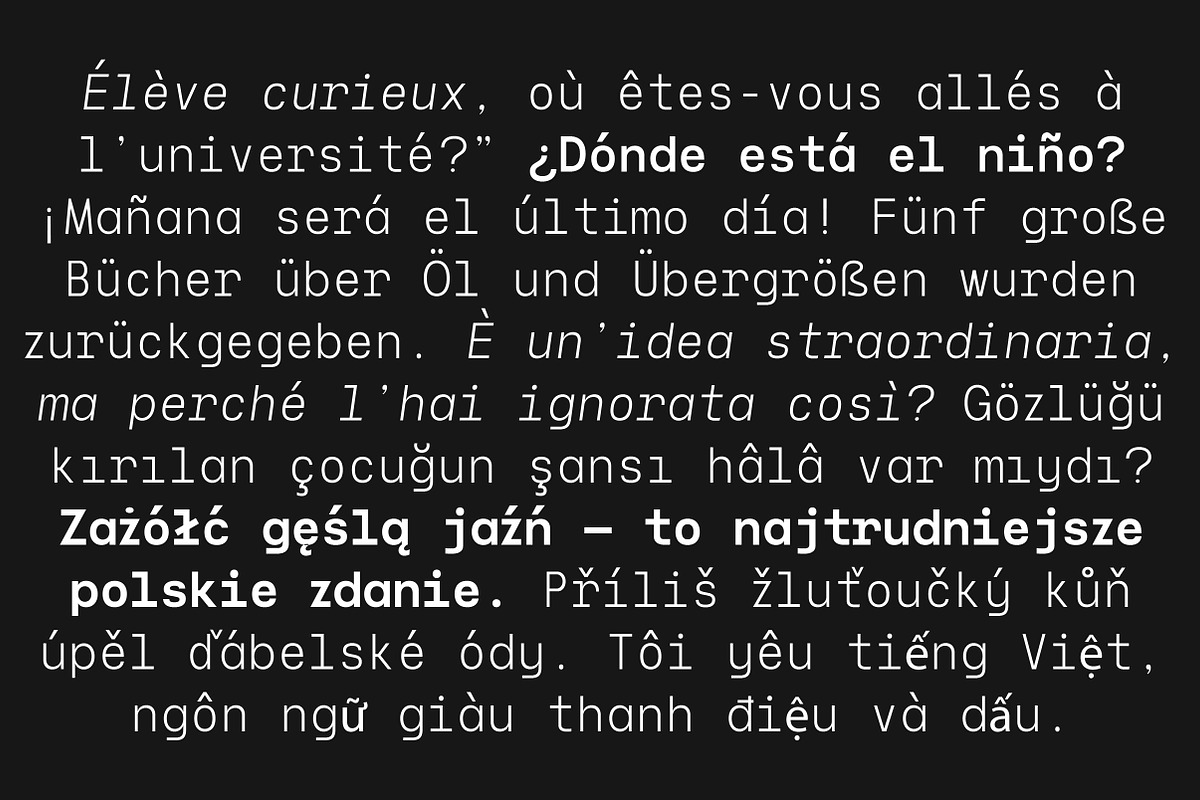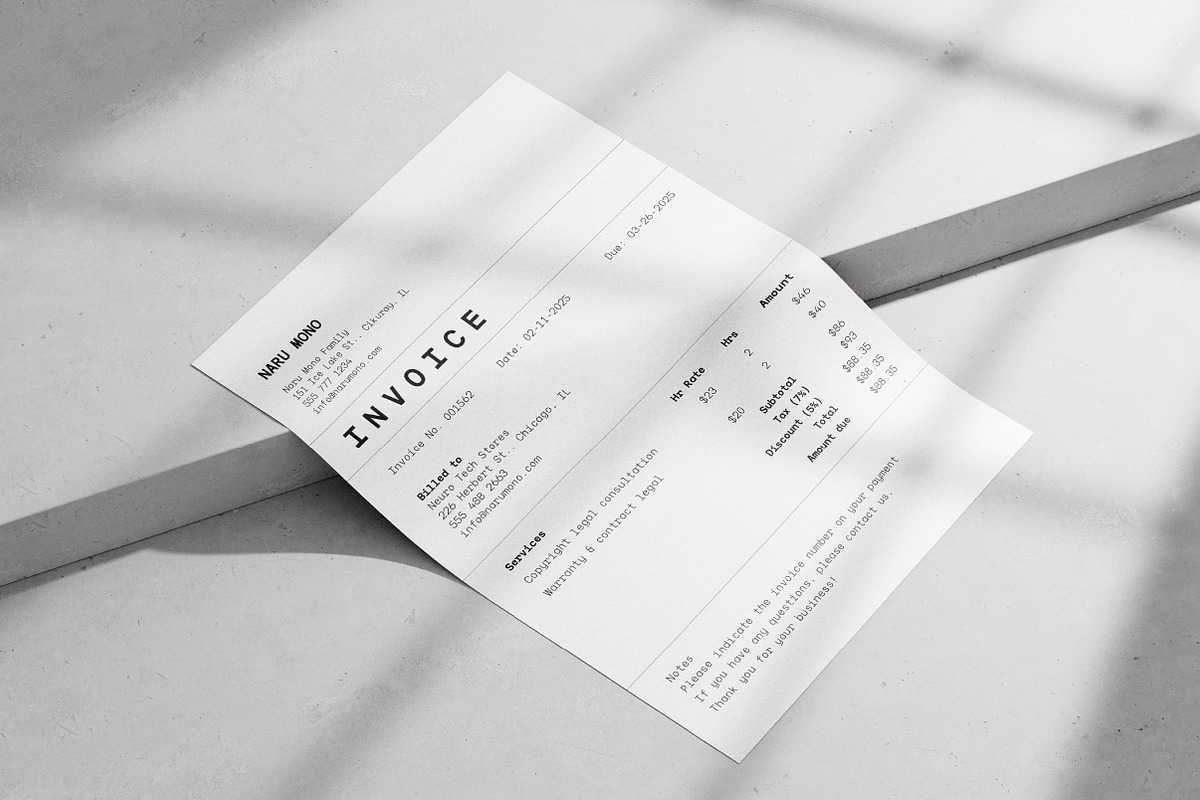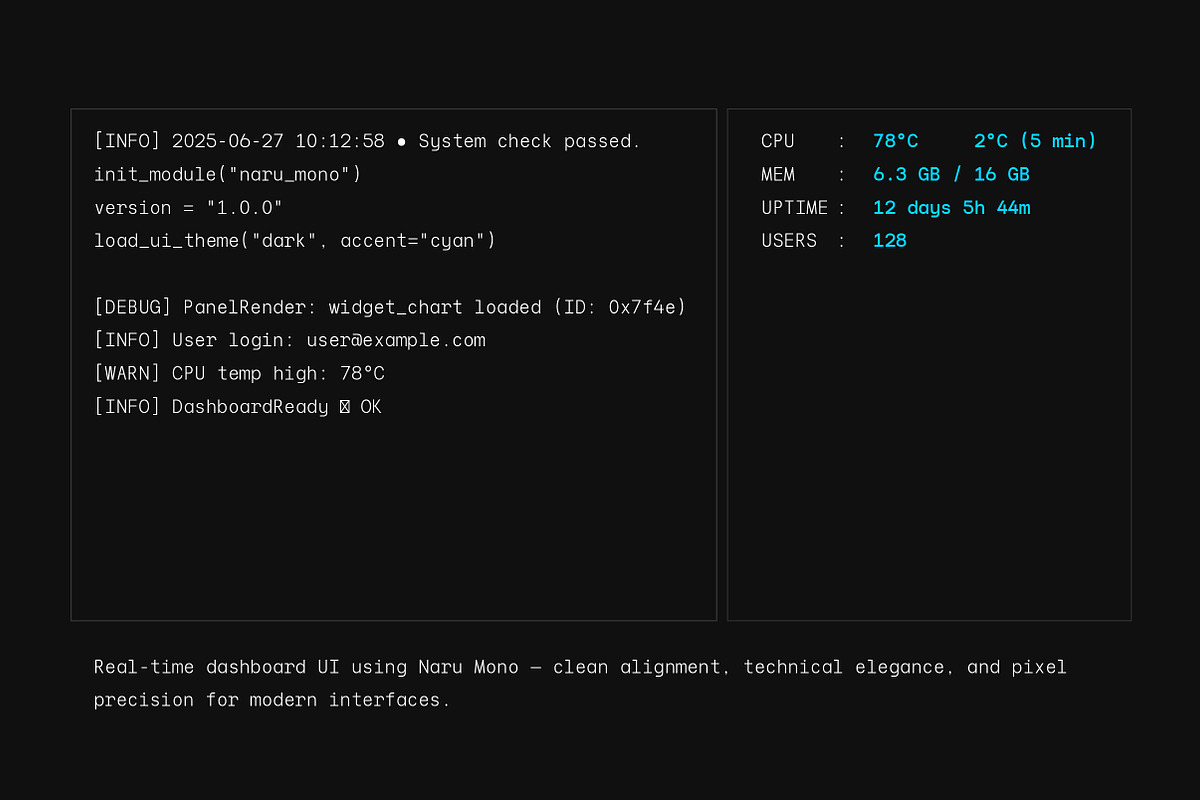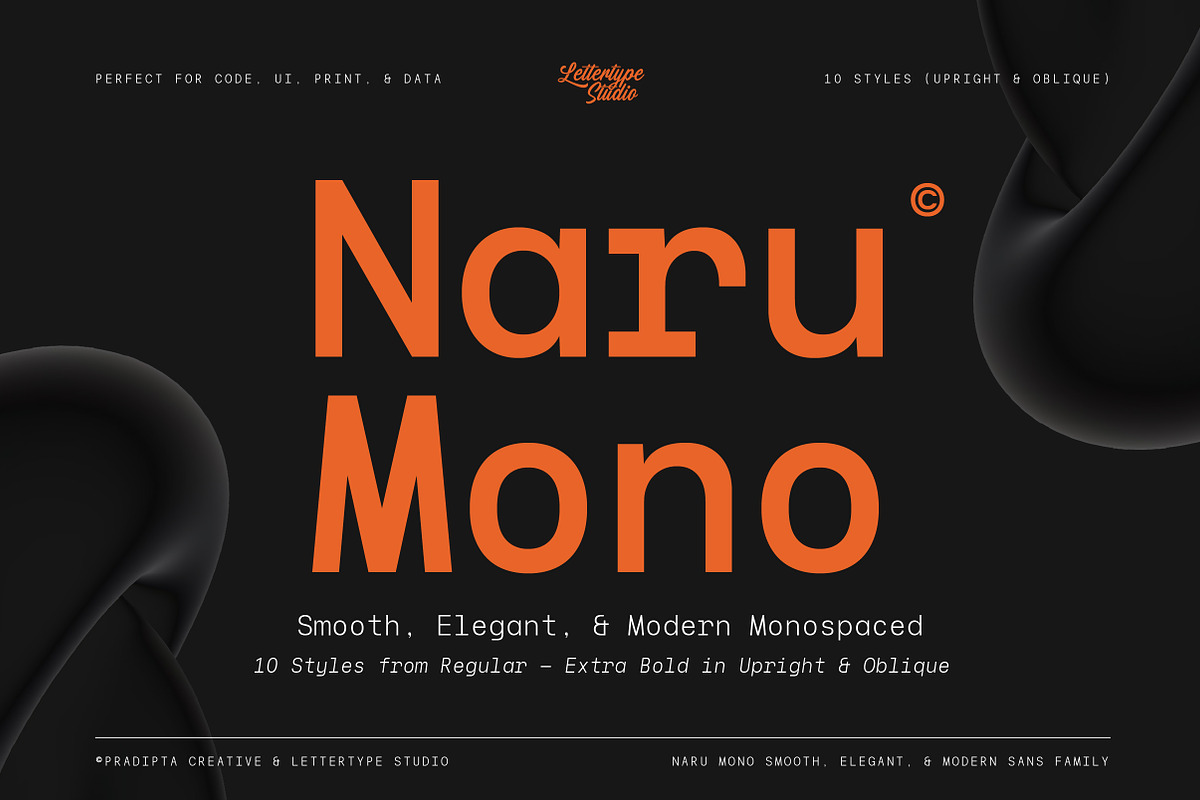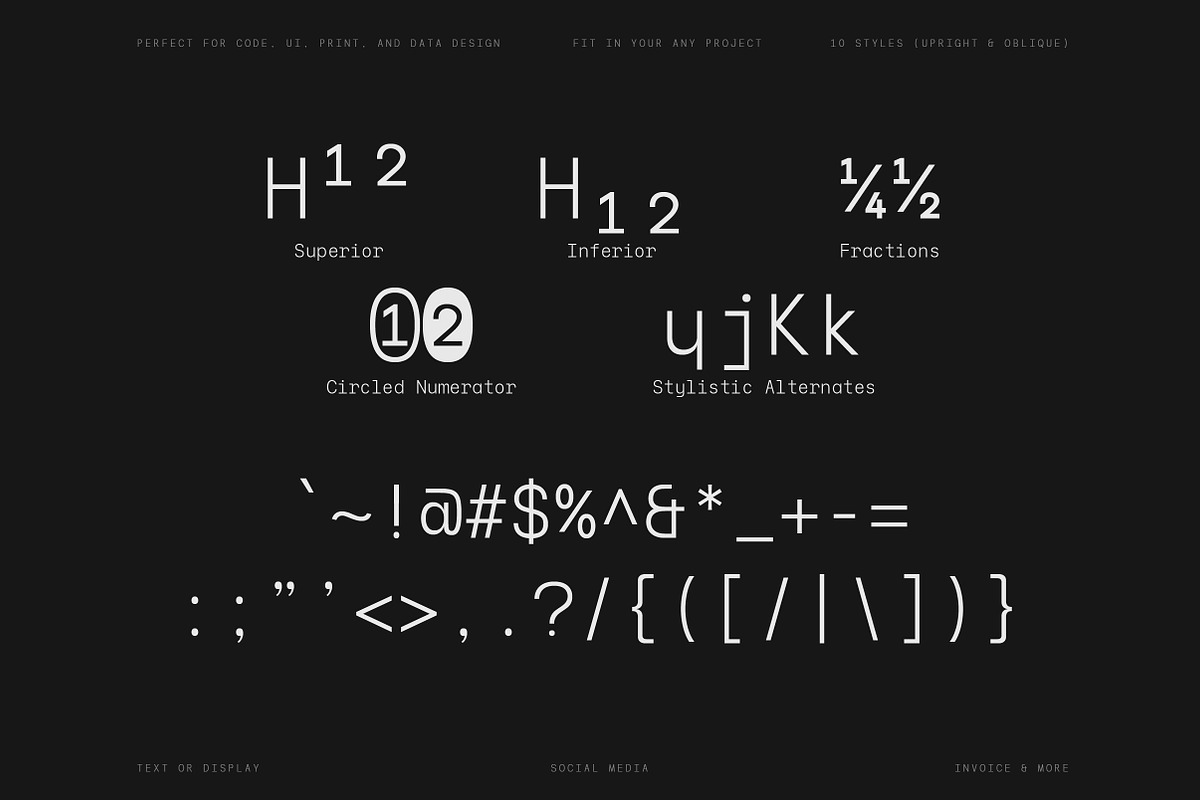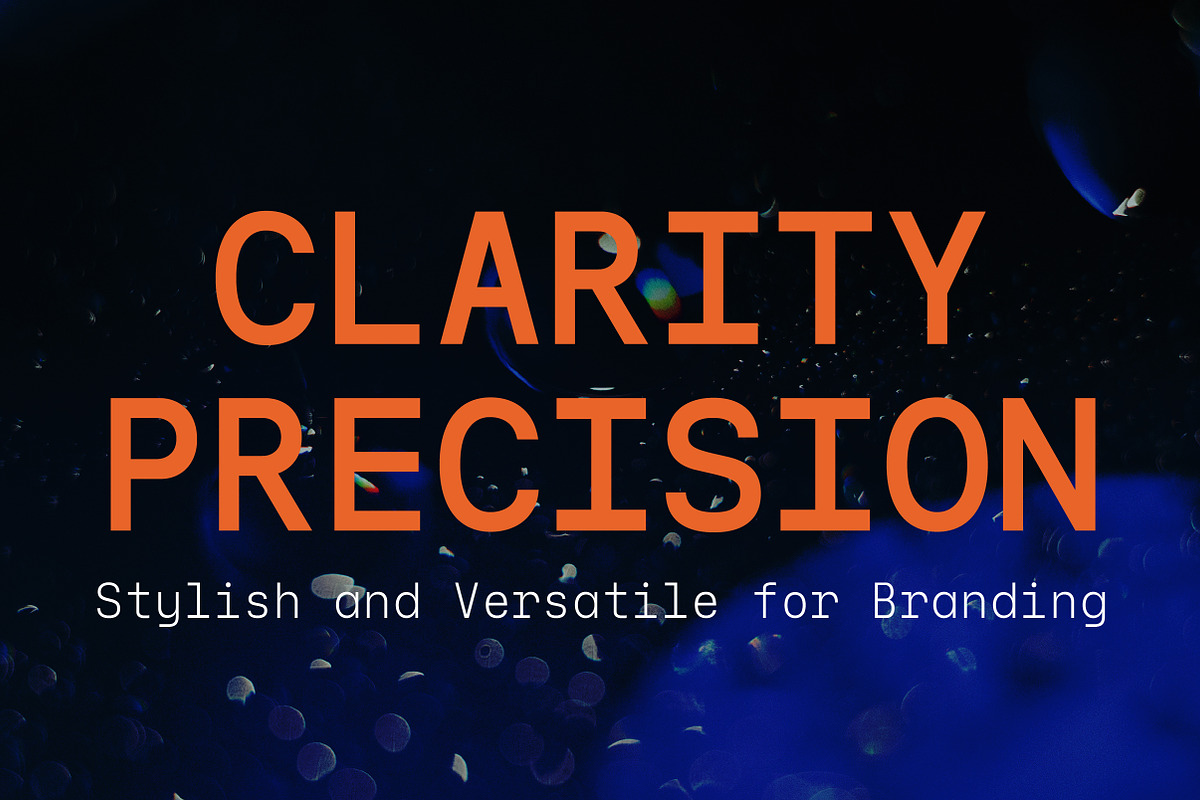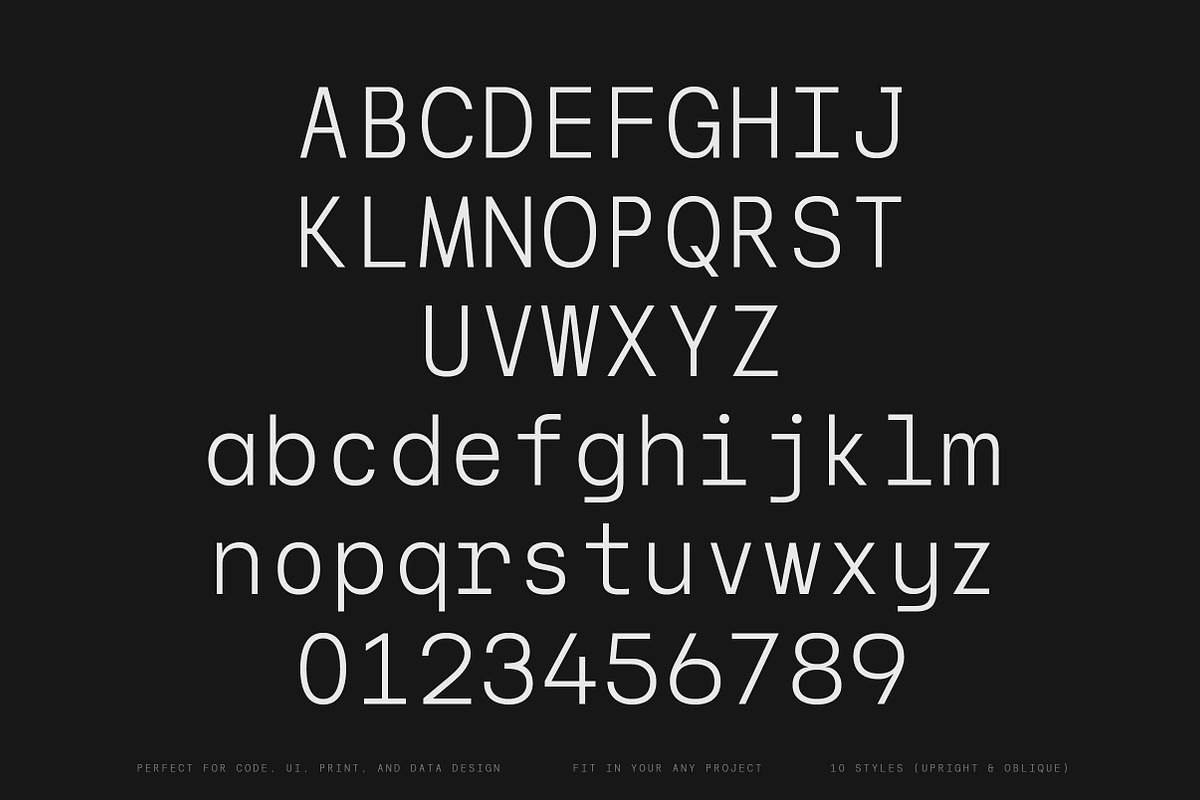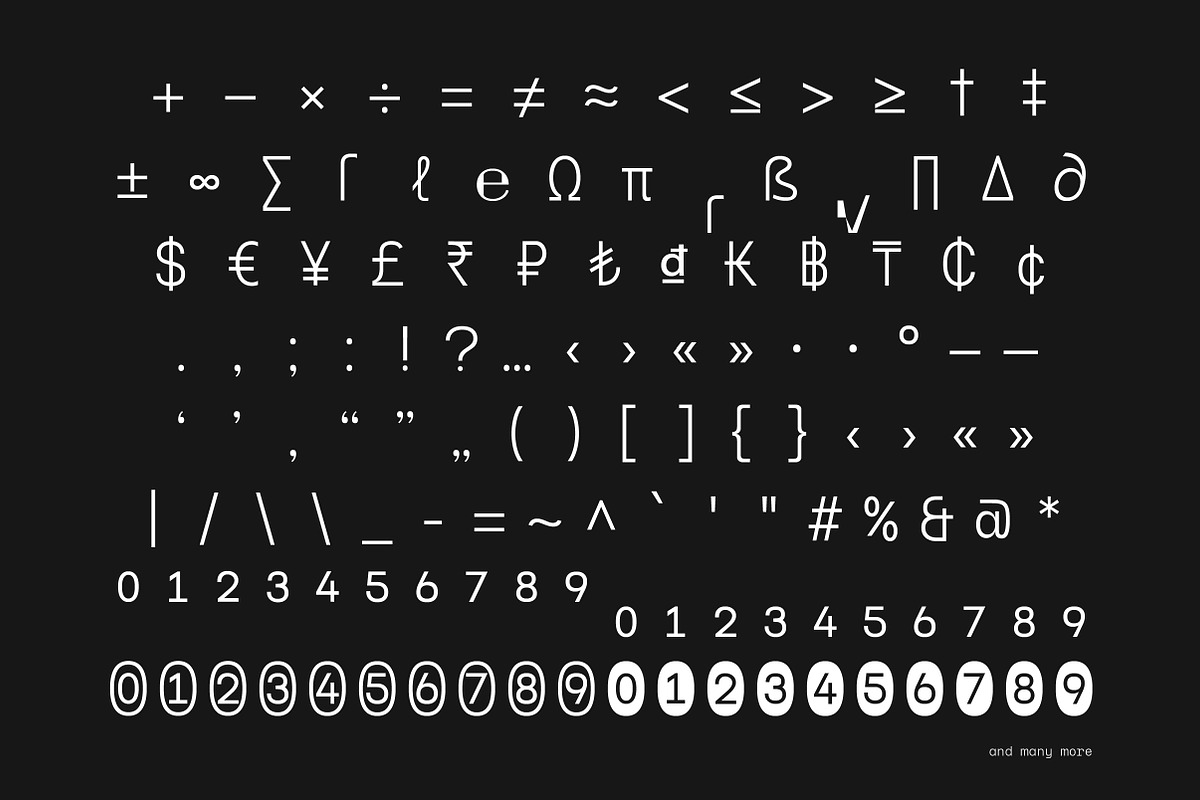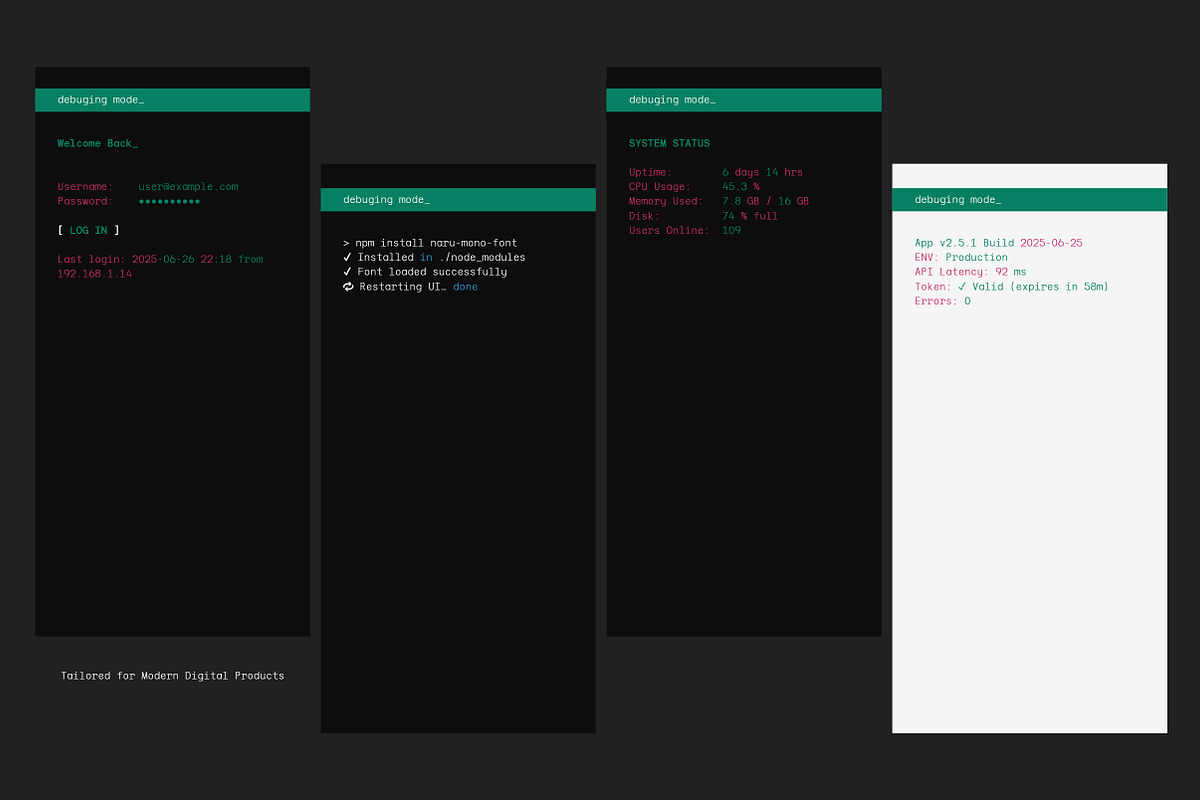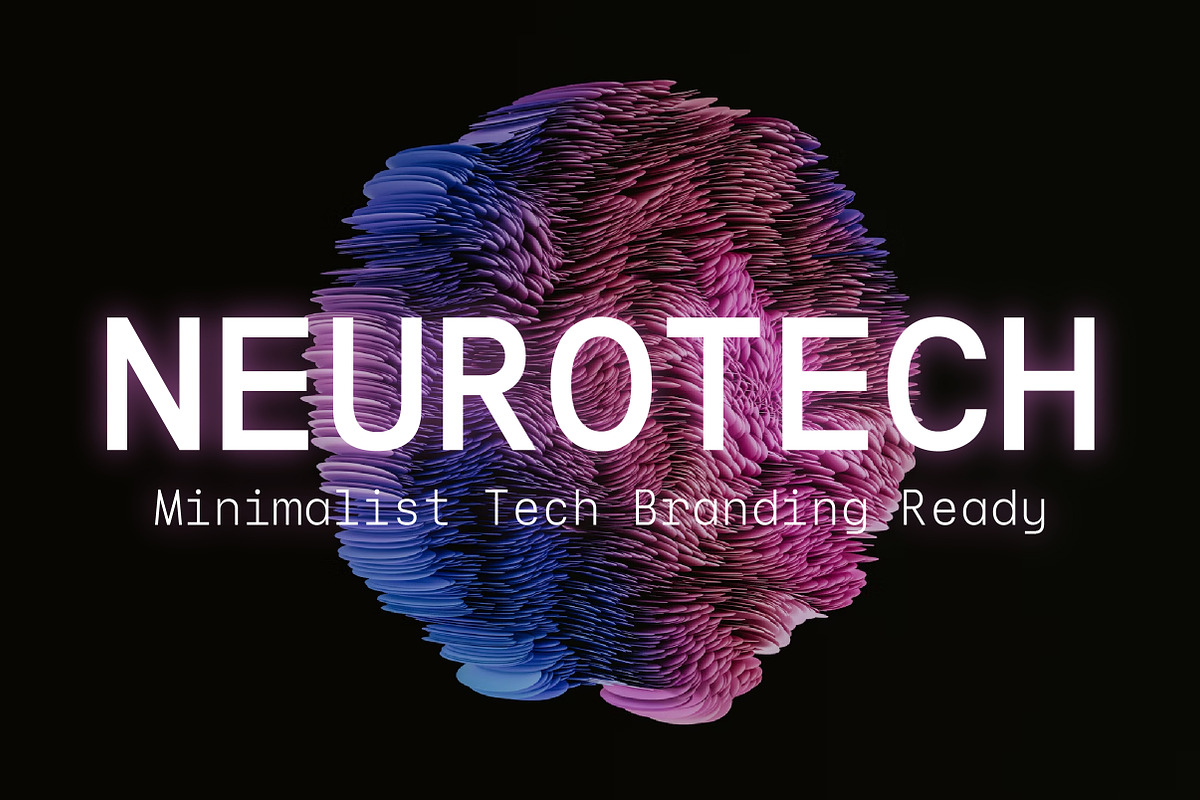
Naru Mono is a modern, smooth, and elegant monospaced typeface family designed for clarity and precision. With geometric construction and clean rhythm, it’s crafted to elevate coding, terminal, UI, and tech-focused designs — while still being friendly and stylish for print or editorial use. Based on the original Naru Sans, Naru Mono seamlessly blends aesthetics and technical functionality.
The family includes 10 versatile styles, ranging from Regular to Extra Bold, each available in both Upright and Oblique formats. Whether you're building a dev dashboard, publishing code snippets, creating branding for tech startups, or designing multilingual interfaces — Naru Mono delivers outstanding legibility and a timeless, modern tone. Supports extensive Latin languages and punctuation.
Naru Mono Features:
- 10 Styles
- Upright & Oblique
- 486 Glyphs Total
- 265+ Language Support
- Developer branding, tech startups & coding interfaces
- Terminal design, IDE themes & software dashboards
- UI/UX layouts, web design & digital product identity
- Editorial projects & magazines with a modern tech feel
- Posters, presentations & minimalist geometric design